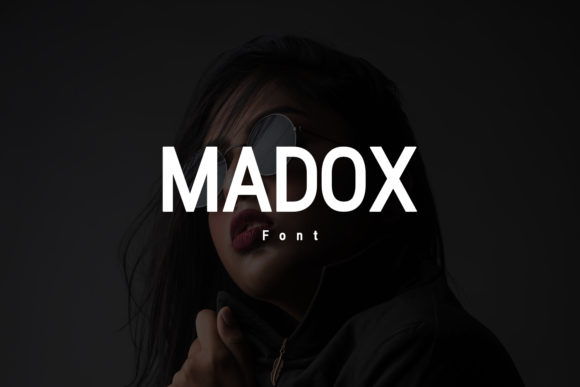
Behold, the Madox Font: A Stroke of Brilliance for Your Digital Designs
In a world saturated with visual noise, your designs need a voice that cuts through the clutter and captivates your audience. Enter Madox Font, the ultimate display font poised to amplify your creative vision and leave an indelible mark on your digital creations.
Madox Font: The Masterpiece of Bold Authenticity
With its bold and authentic strokes, Madox Font exudes a confidence that commands attention. Its carefully crafted characters dance across the screen, evoking a sense of nostalgia and timeless elegance. Whether you're crafting eye-catching headlines, captivating social media posts, or designing stunning logos, Madox Font is your secret weapon to create designs that resonate with your audience.
Unleash Your Creativity with Madox Font: Endless Possibilities Await
Madox Font is the ultimate playground for your imagination. Its versatility knows no bounds, allowing you to explore a myriad of creative possibilities. From sleek and modern designs to vintage-inspired creations, Madox Font effortlessly adapts to your unique style, adding a touch of sophistication and personality to every project you undertake.
The Best Font for TV Display: Make Your Message Shine
In the realm of TV displays, Madox Font reigns supreme. Its bold and clear strokes ensure that your message shines through, even amidst the visual chaos that often pervades our screens. Whether you're creating captivating presentations, dynamic infographics, or engaging videos, Madox Font guarantees that your content will captivate and hold the attention of your audience.
Madox Font: Created by Design Stag, the Masters of Typographic Excellence
Design Stag, the visionary team behind Madox Font, has poured their passion and expertise into crafting this typographic masterpiece. With an unwavering commitment to quality and innovation, Design Stag has established a reputation for creating fonts that not only look stunning but also perform flawlessly. Madox Font is a testament to their dedication, offering designers a tool that empowers them to elevate their work to new heights.